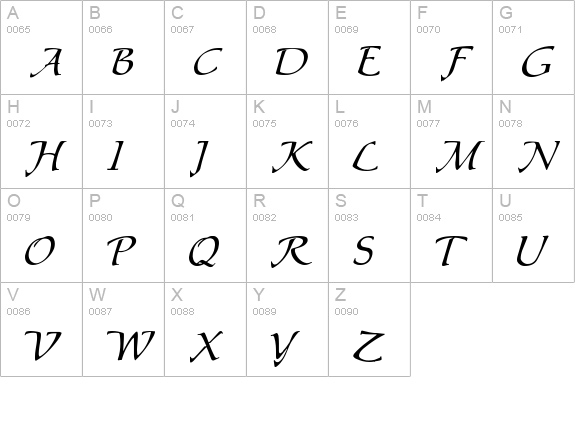
Ingenius Regular is the standard, neutral variant in the Ingenius typeface family \xE2\x80\x94 well suited to general body text, paragraphs, and standard typographic work.
Ingenius Regular font is a masterpiece of typographic design, combining elegance and versatility in perfect harmony. Its clean lines and balanced proportions make it suitable for a wide range of creative projects, from branding and advertising to editorial design and web applications. With its timeless appeal, Ingenius Regular font effortlessly captures attention and conveys a sense of professionalism and sophistication. The meticulously crafted letterforms exude a sense of confidence and style, making it the perfect choice for those seeking to elevate their designs to the next level. What sets Ingenius Regular font apart from the rest is not just its exceptional design, but also its accessibility. Unlike many premium fonts on the market, Ingenius Regular font is freely available to download at FontsMarket.com. This means that designers, developers, and enthusiasts alike can enjoy the benefits of this remarkable font without breaking the bank. Whether you're a seasoned professional or a budding designer, Ingenius Regular font offers endless possibilities for expressing your creativity. Its extensive character set includes all the essential glyphs and special characters, ensuring that your designs will be as unique and captivating as you envision. So why wait? Take advantage of the opportunity to enhance your projects with the timeless beauty of Ingenius Regular font. Download it for free today at FontsMarket.com and let your imagination take flight.